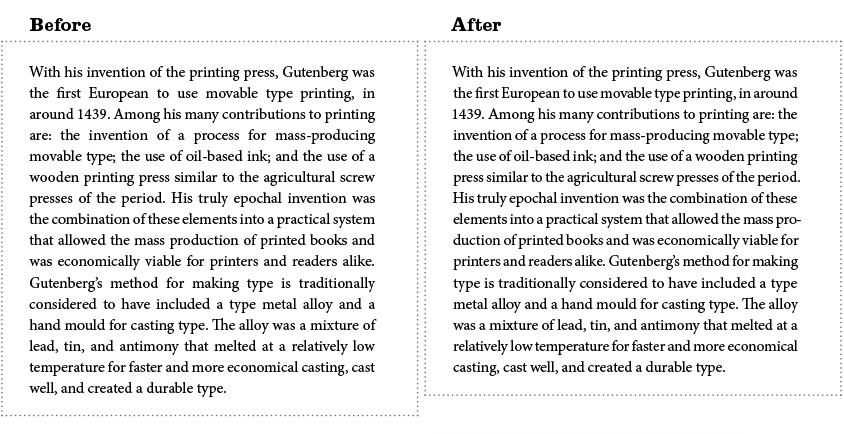
Not all body copy is created equal, but the way it’s typeset should be clean and easy to read. Reading copy is most effectively set with medium line lengths, even horizontal rhythm and large-enough x-height so that it’s inviting to most audiences.
Some software programs automate fully justified boxes of copy, but you end up with rivers large enough to swim through. How does one set a box with even spacing?
To ensure my justified copy is balanced on the page, easy to scan and enjoyable to read, I use a personal recipe that I've developed and used for over 15 years, translated from the approaches I learned in phototypesetting. It starts with some basic settings in InDesign. I turn on hyphenation, adjust optical margin alignment, modify word and letter spacing, glyph scaling, and change the default composer.
Hyphenation (Type & Tables > Paragraph Palette > Hyphenation)
Turning on hyphenation creates smoother rags. Making the eye jump back and forth at the end of each line labors the reader. So turning on hyphenation helps to give the reader an expected place of return after each line. I like to hyphenate after the first 4 letters and before the last 3, because two is difficult to read (think how confused you'd be when reading a ‘be-’ at the end or an ‘ly’ at the beginning of a line). You can also play with the spacing vs. hyphens slider for maximum effect.
Optical Margin Alignment (Type & Tables > Story)
Turning this on allows me to hang my punctuation. Beginning a line indented with punctuation such as a left quote or ellipsis is redundant. So to hang quotes and average out the left margin, turn on the Optical Margin Alignment on the Story palette.
Glyph Scaling (Type & Tables > Paragraph Palette > Justification)
This range allows a little flexibility in the way the glyphs proportionally scale. Newspaper printers sometimes had a slightly narrower set of type and slightly wider set of type in order to fit more content where needed. My preferred range is within 98% and 102%, so slight the human eye can hardly detect.
Word & Letter Spacing (Type & Tables > Paragraph Palette > Justification)
These settings automatically adjust the overall spacing between letters and words. The defaults in InDesign are too generous for my taste, so I have my own that perform better. However these are still the starting place since it depends on the typeface.
Composer (Type & Tables > Paragraph Palette > Justification)
Stay with the Adobe Paragraph Composer. This changes how InDesign handles composition. As you type or edit a paragraph, InDesign adjusts the line breaks a paragraph at a time, which explains why you may notice text reflowing above the line you are editing.
Be sure to click on preview to see how your type is looking. Start with these settings and adjust for your chosen typeface.
So that's it. Of course different typefaces are different sizes and you will have to adjust depending on the format of your copy, but start with these settings, change optically and manually massage the copy until it is balanced.